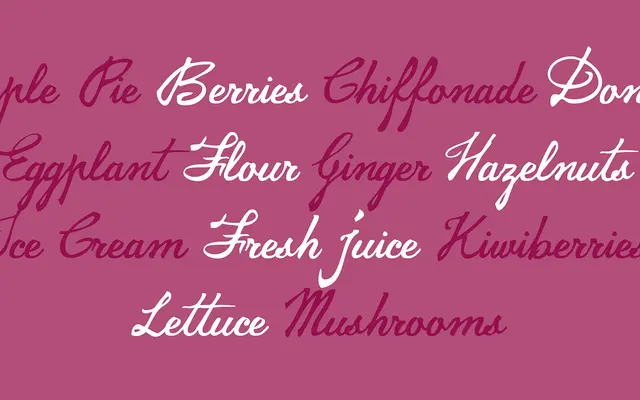
Jamscript
Zetafonts · Debora Manetti · 2015
A single-weight casual script by Debora Manetti with broad Latin language coverage and a swash character on the underscore.
Designed by Debora Manetti and released in 2015 as part of the Christmas Vibes set, this casual script covers 188 languages using the Latin alphabet, with a full set of accents and diacritics across 362 glyphs. A swash character sits on the underscore slot, offering a simple flourish option. Its seasonal origin suggests primary use in greeting, packaging and decorative contexts.
A handwritten script typeface with flowing letterforms and swash details, typical of casual display scripts used in decorative and seasonal contexts.